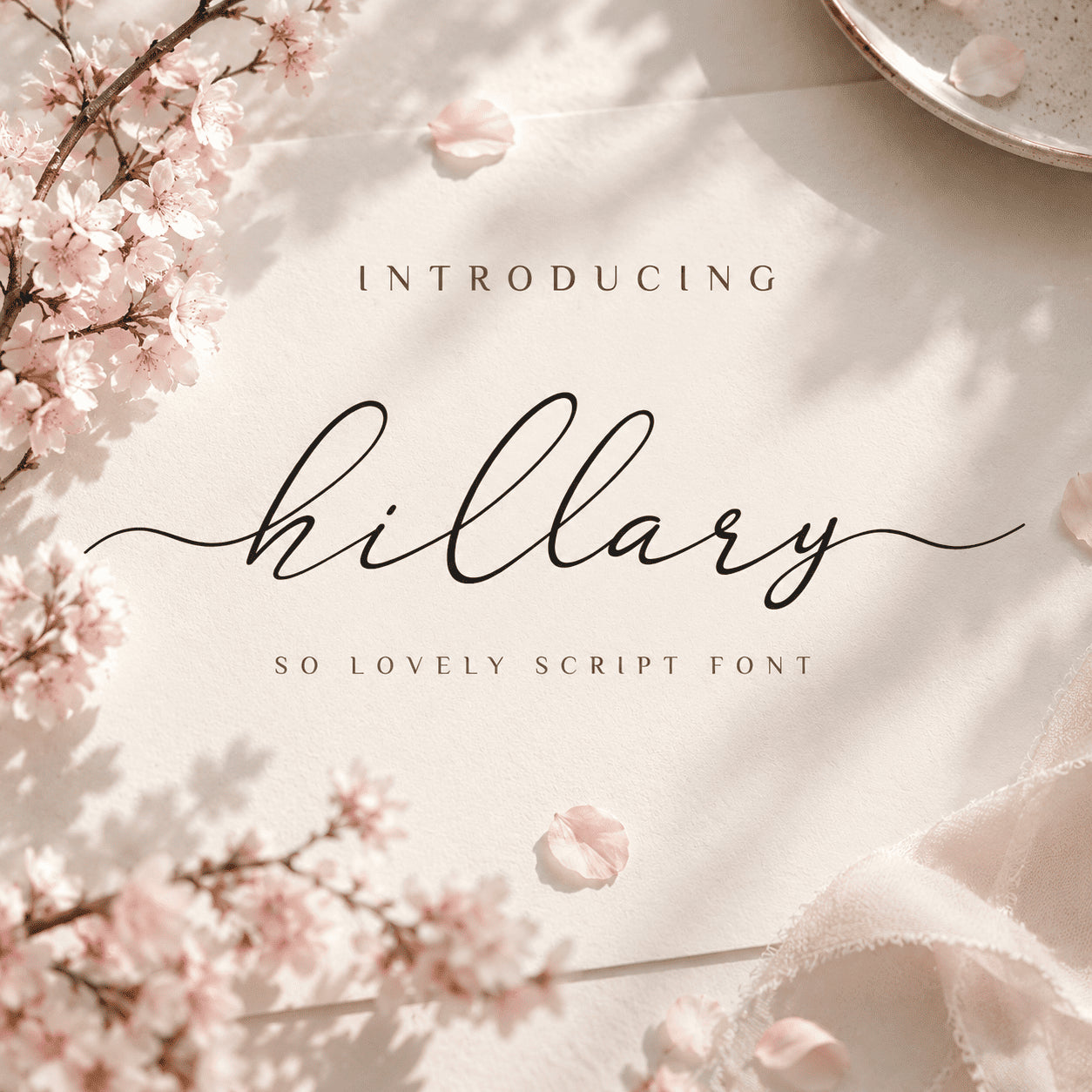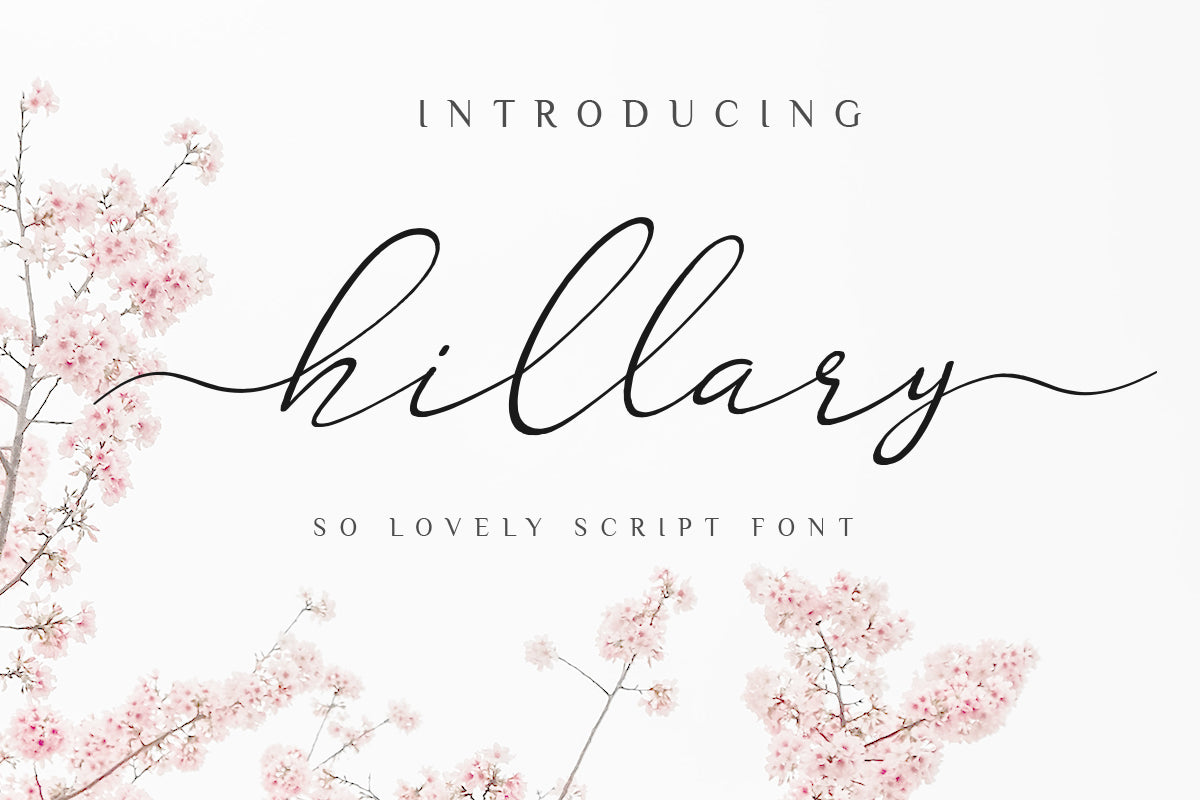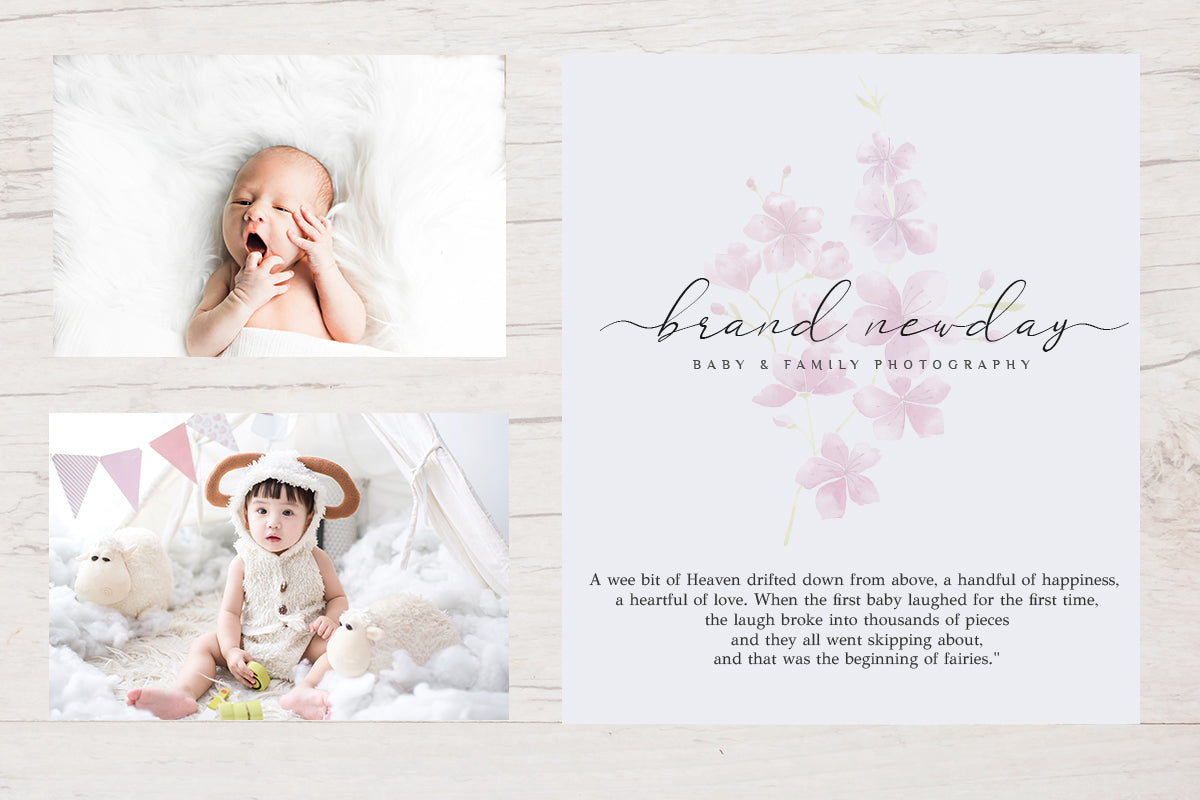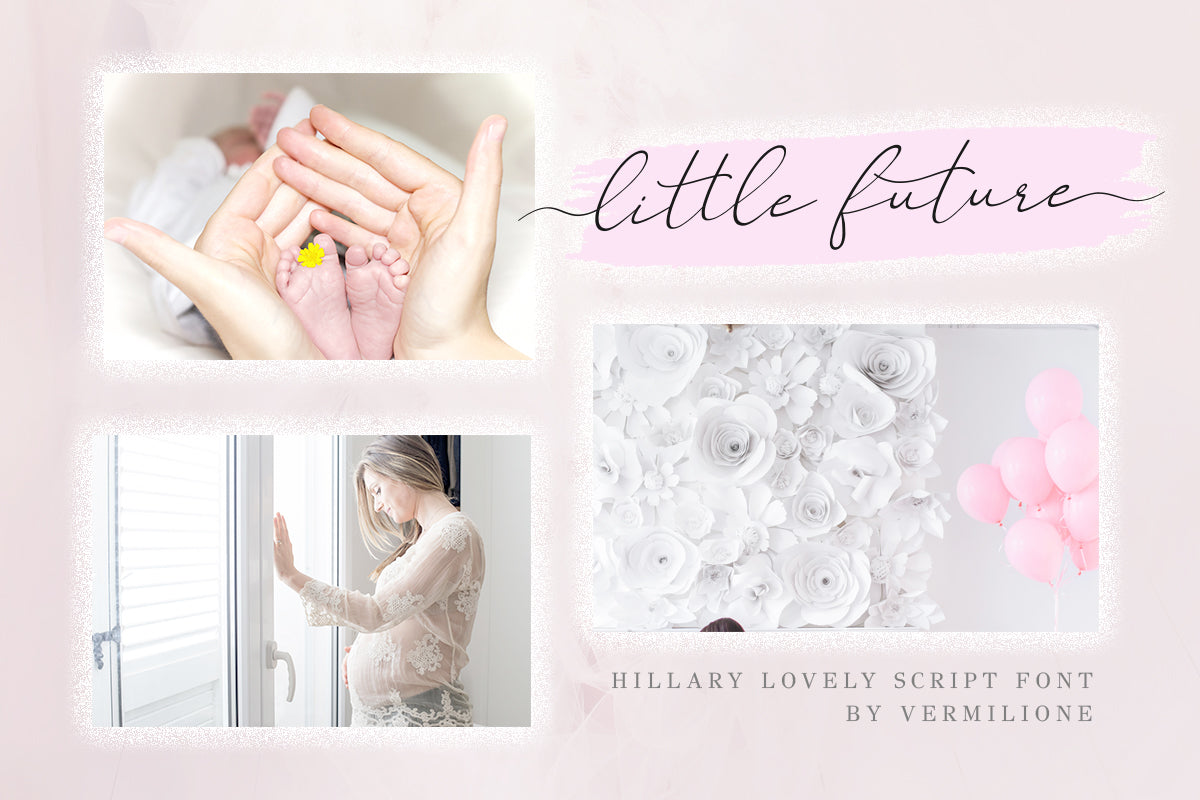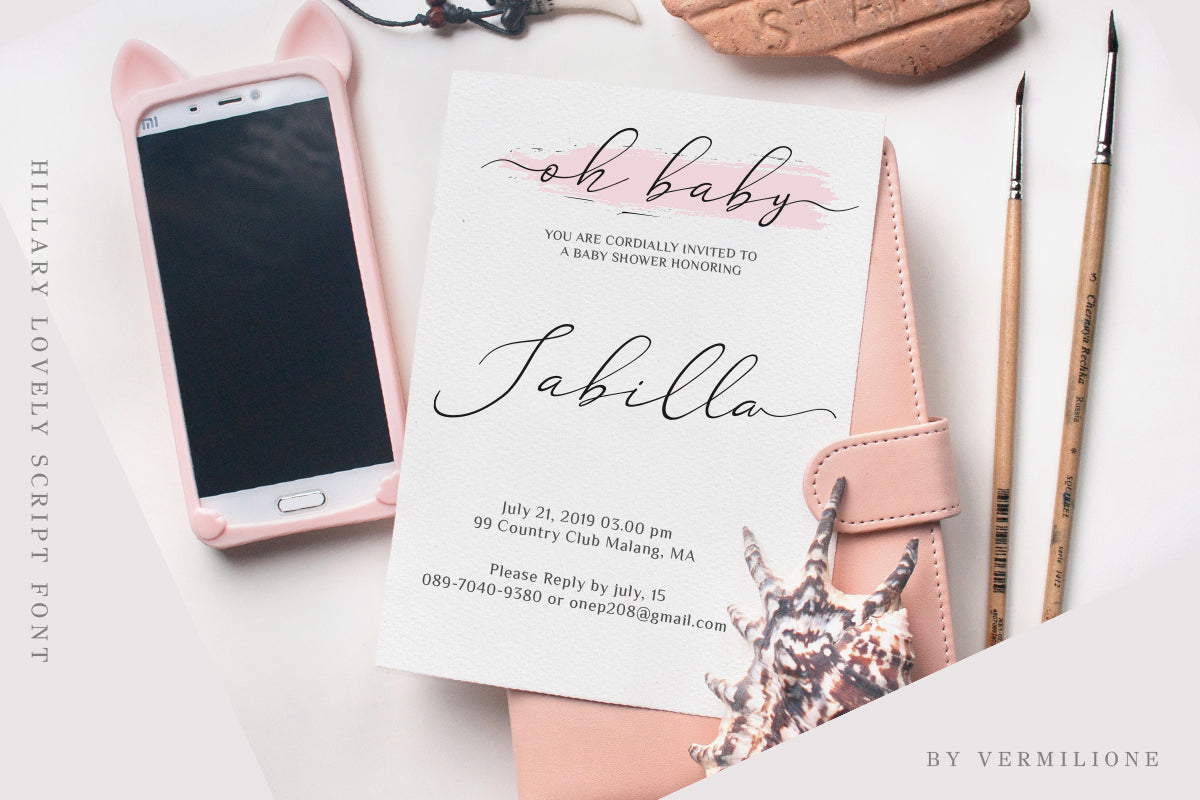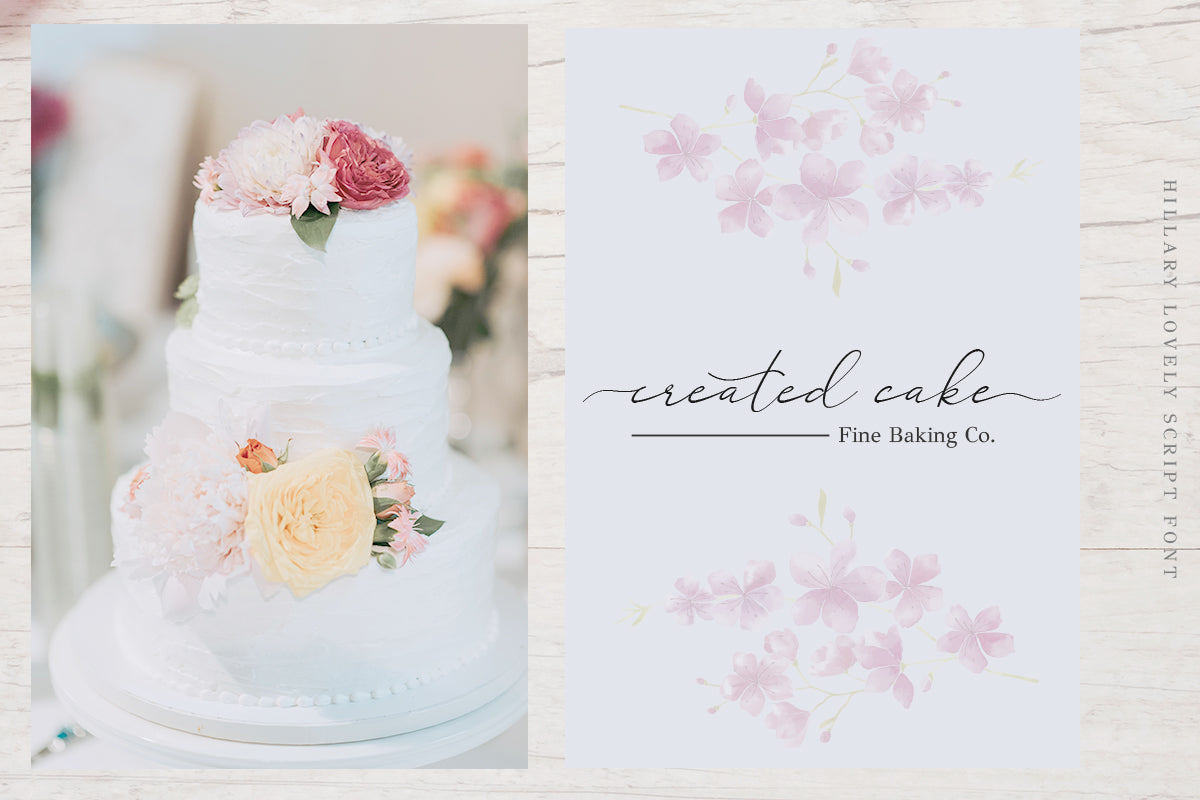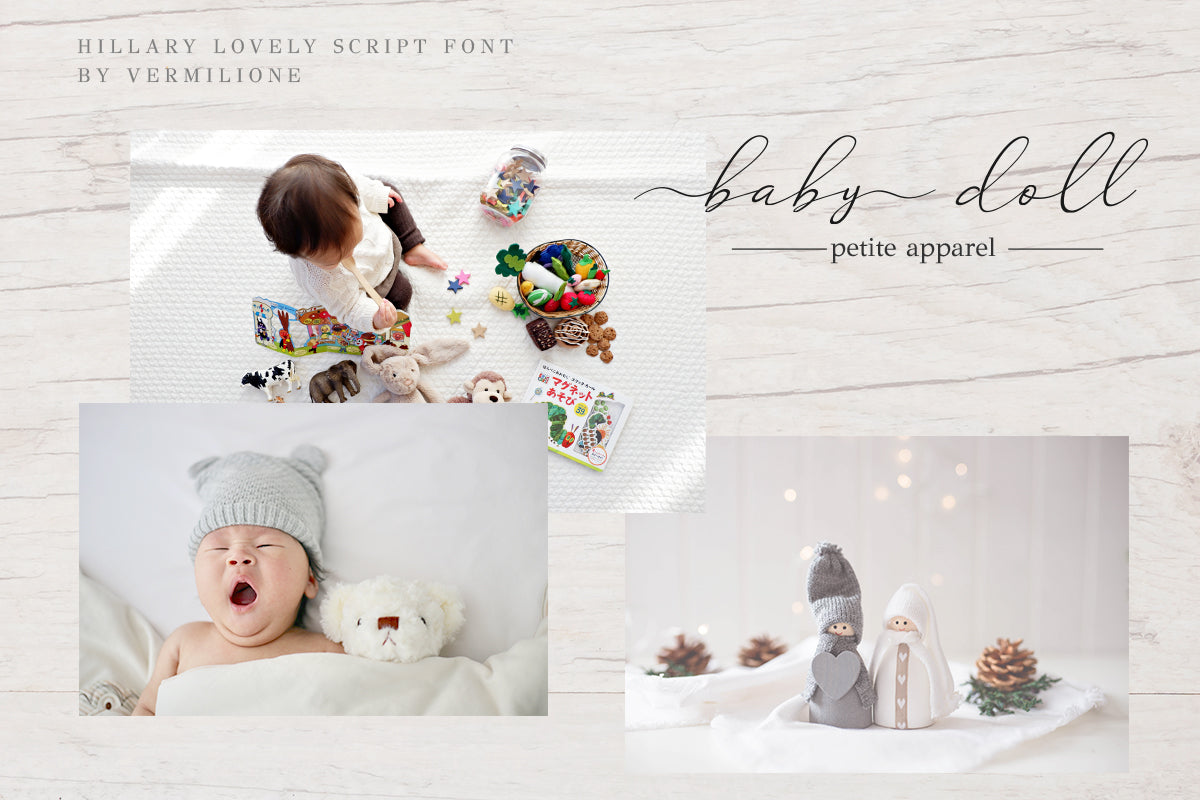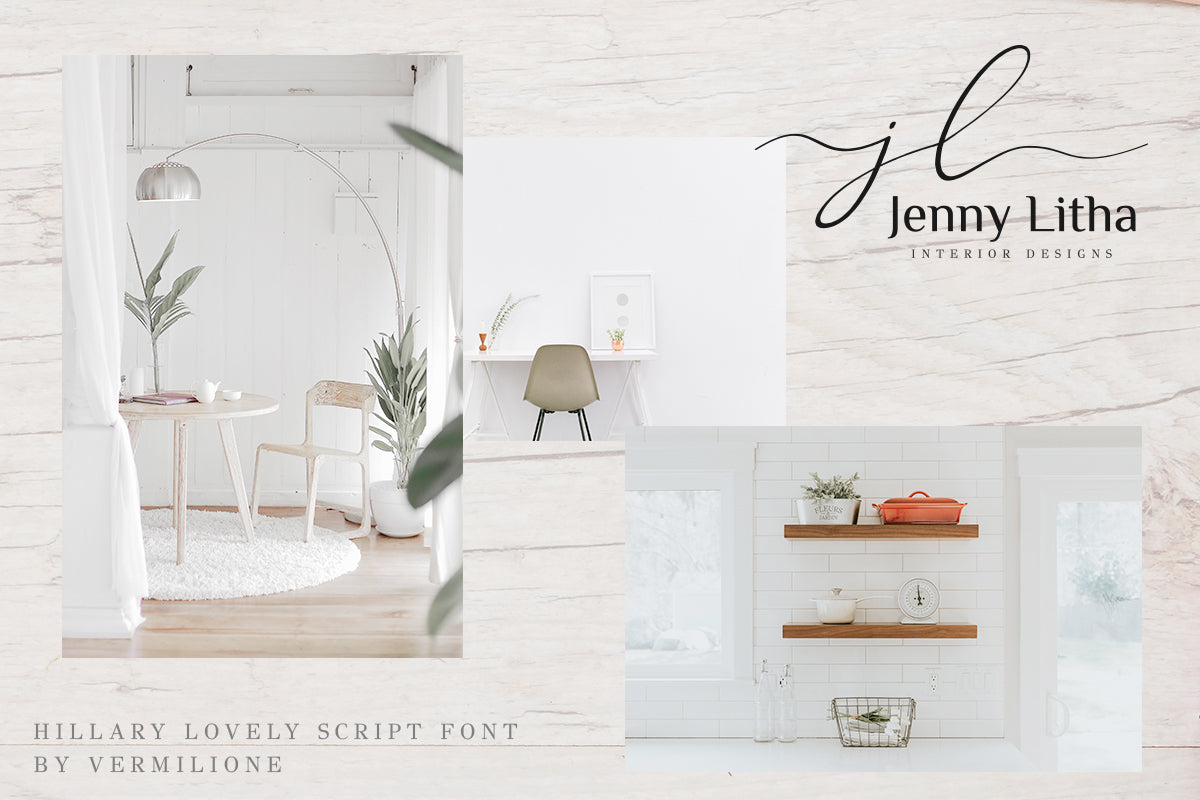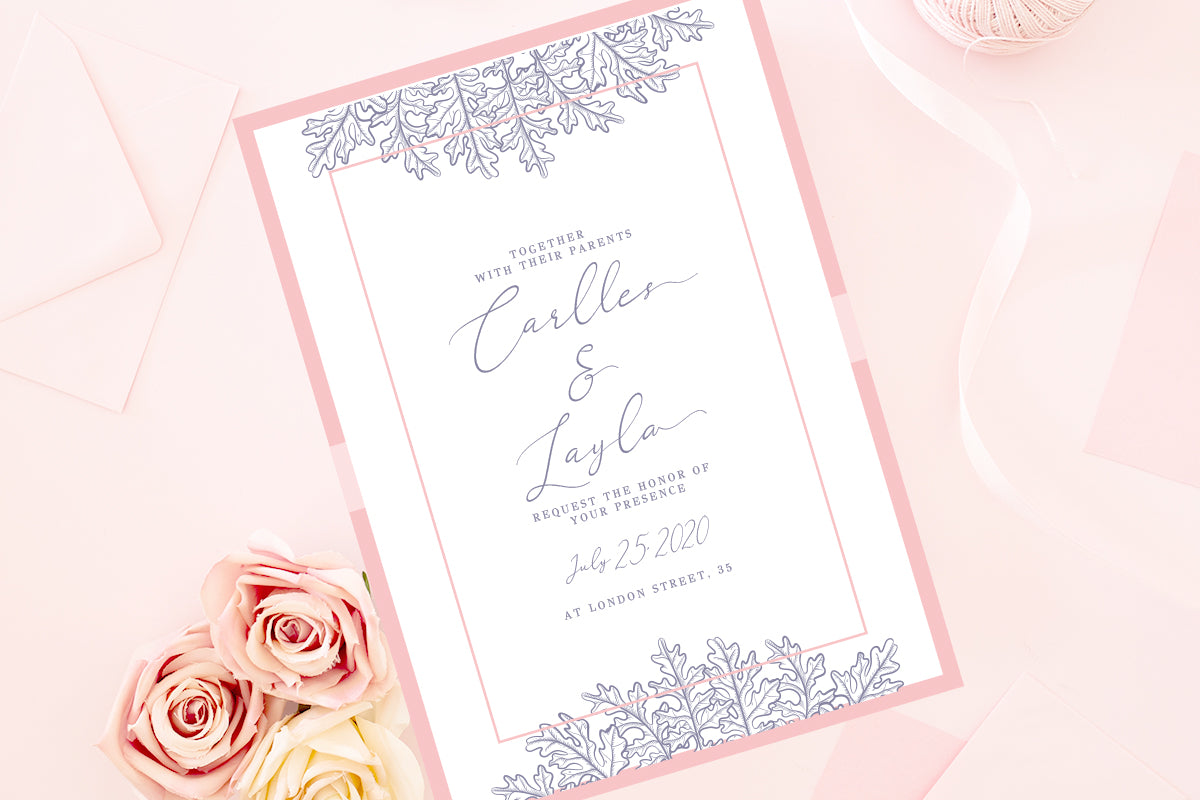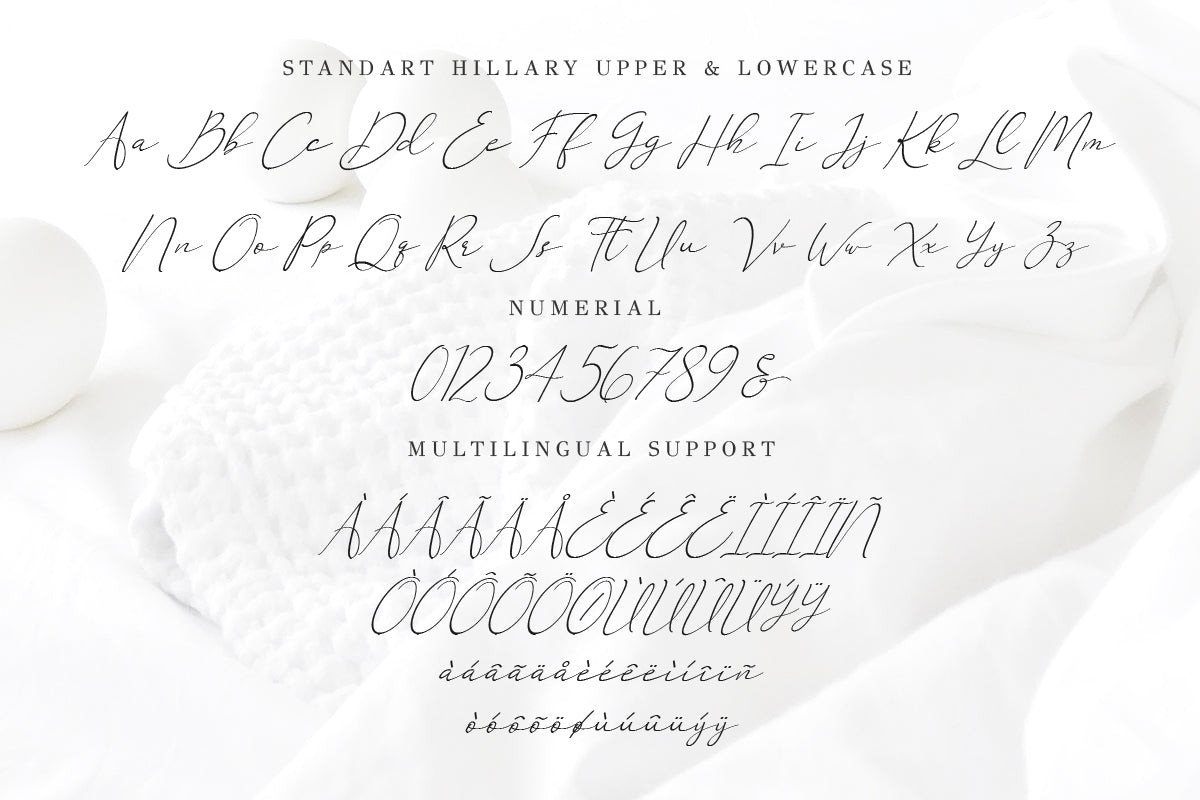
Hillary - Lovely Script Font
Hillary is lovely script Font is an elegant and feminine handwritten typeface designed to bring a delicate, romantic, and sophisticated touch to your creative projects. Its graceful letterforms and flowing strokes make it perfect for wedding invitations, stationery, branding, logos, beauty products, fashion, photography, greeting cards, social media designs, and elegant editorial layouts.
Hillary includes beautiful script characters, stylistic details, and multilingual support, making it a versatile choice for both personal and professional design projects.
• Script Style
• Special Swash Alternates
• Uppercase and Lowercase
• Number, Symbol, and Punctuation
Hillary is a script font featuring flowing letterforms, uppercase and lowercase characters, stylistic swash alternates, numbers, symbols, and punctuation. It includes multilingual support and is provided in OTF, TTF, and WOFF file formats.